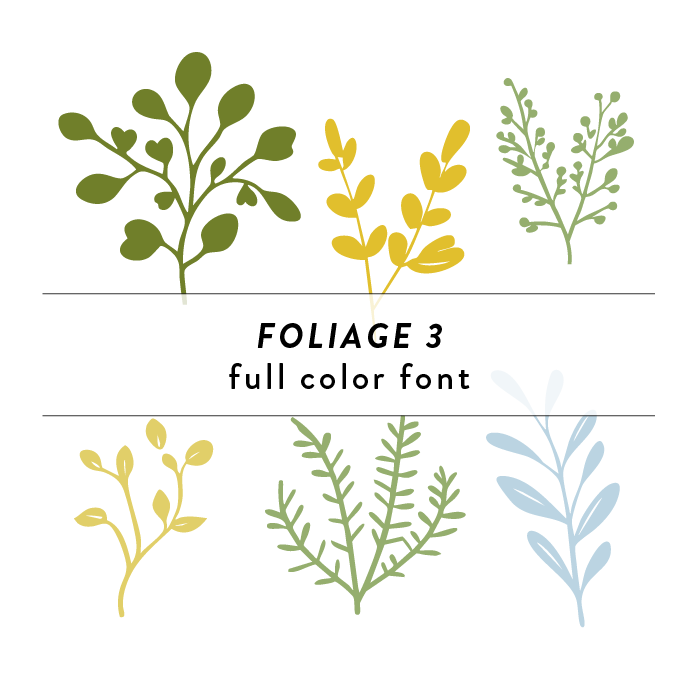
Foliage 3 Full Color Font is a unique decorative font design inspired by trees, branches, leaves, and flowers. The font features intricate details and vibrant colors, perfect for adding a whimsical touch to any project. Its style is whimsical and organic, making it ideal for nature-themed designs or projects that require a playful and artistic flair. This font is a OTF craft font that will appear in color only when used with the silhouette software.